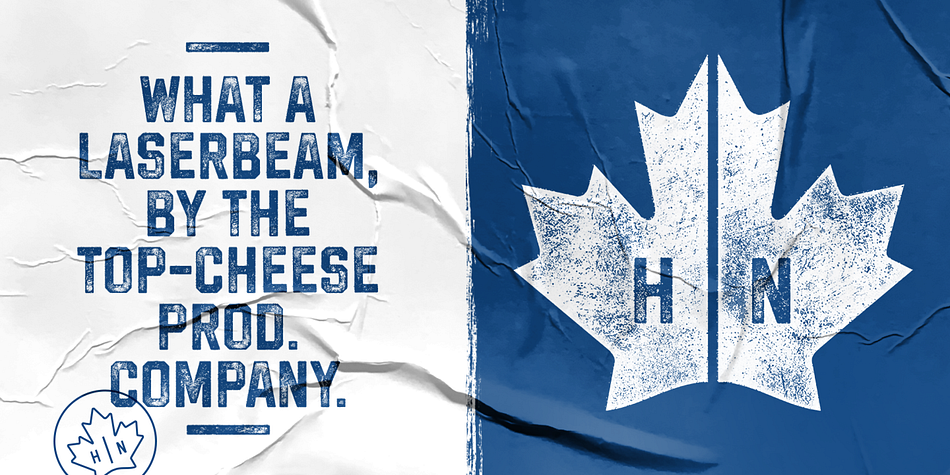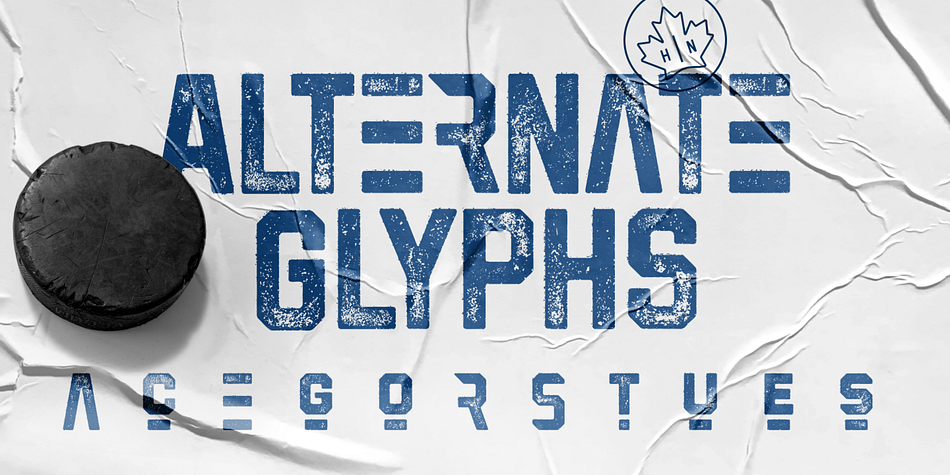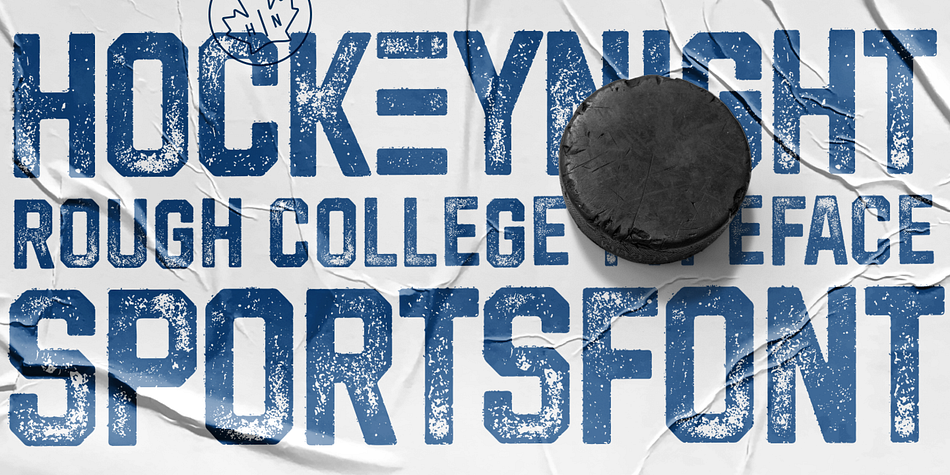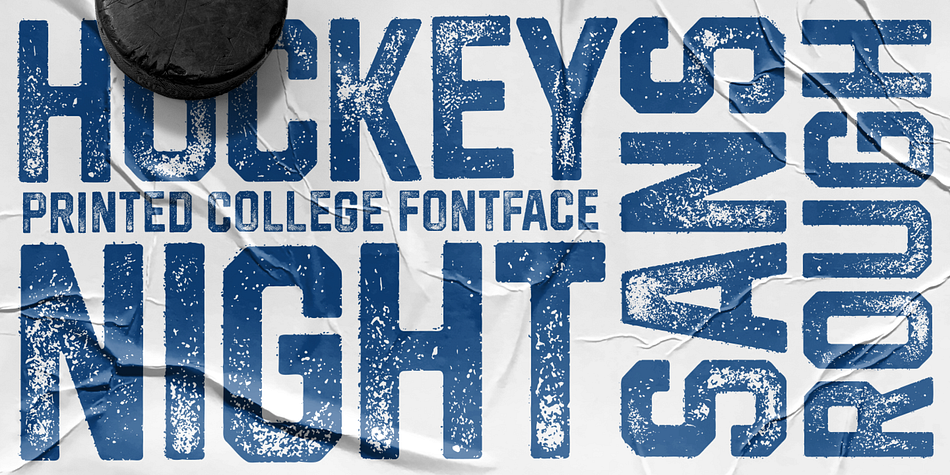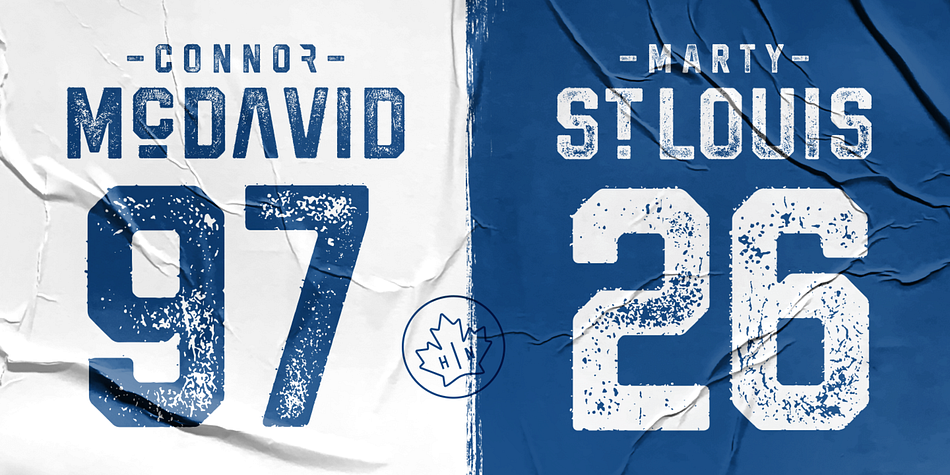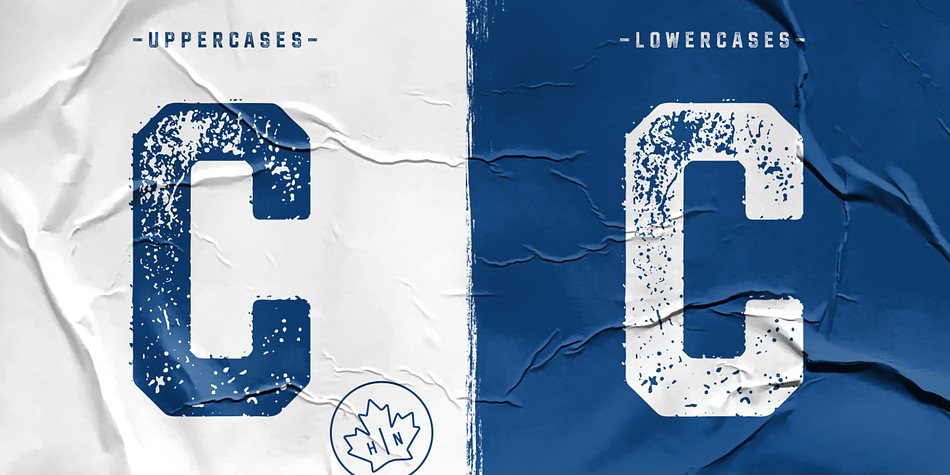
Designed by Christoph Zeugswetter, Hockeynight Sans Rough is a display sans and sans serif font family. This typeface has two styles and was published by xtoph.
“Hockeynight Sans Rough” is the Letterpress version of my font “Hockeynight Sans”.
It’s a contemporary college-sports font with the little twist – that its a misprinted grunge font.
With its detailed grunge textures it is designed to go big and bold.
“Hockeynight Sans Rough” is an uppercase font and it offers alternate glyphs as lowercases.
Also you find a lot of bonus glyphs in the alternate glyphs panel!